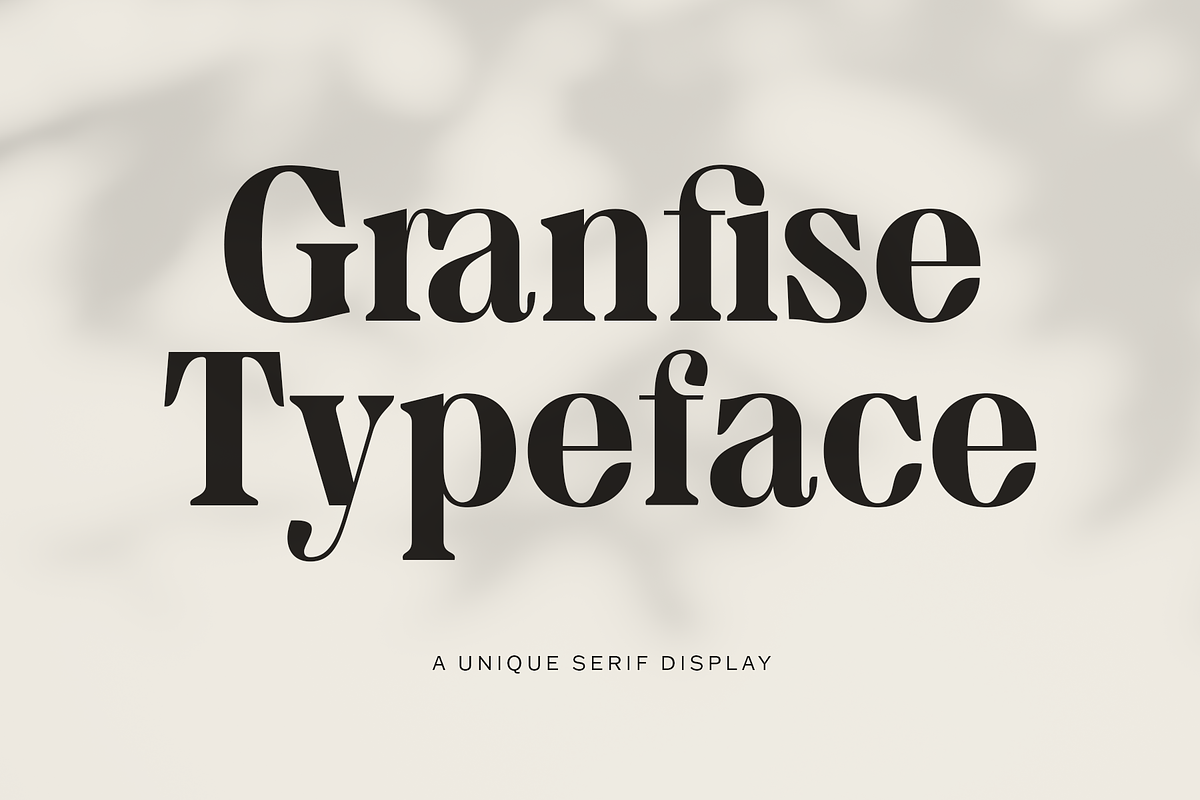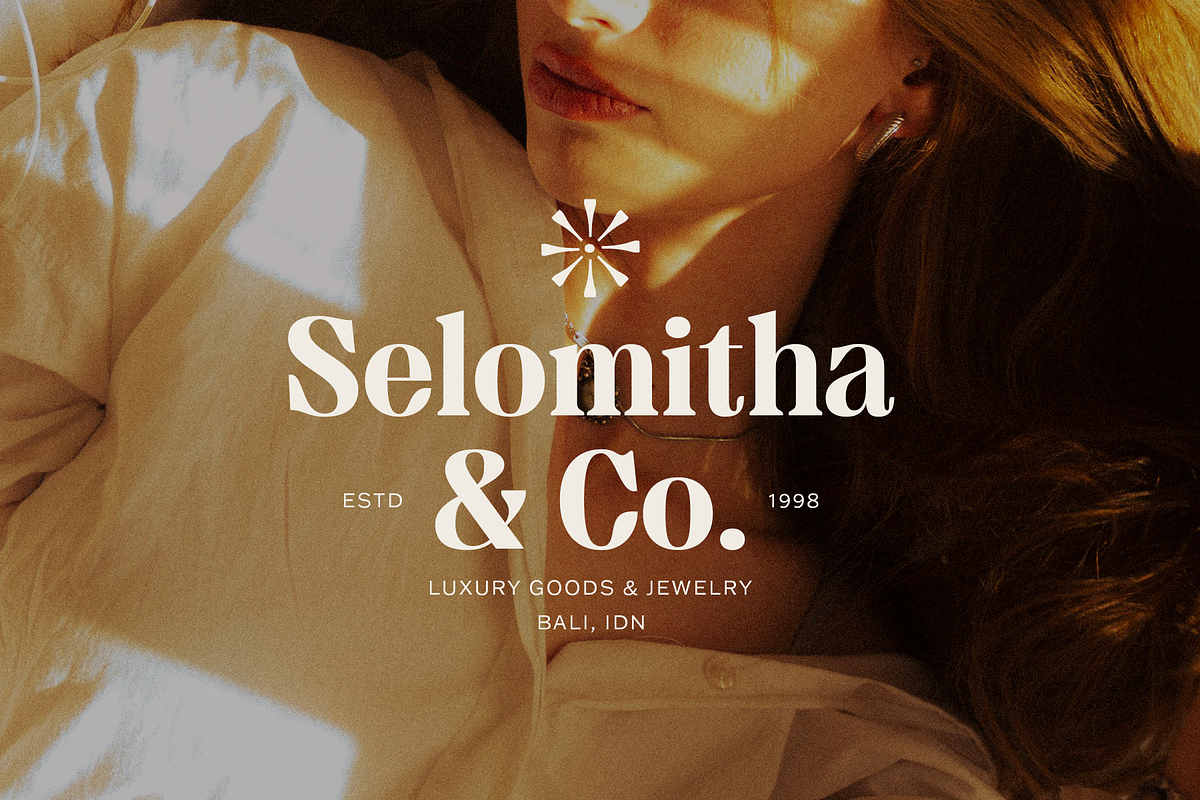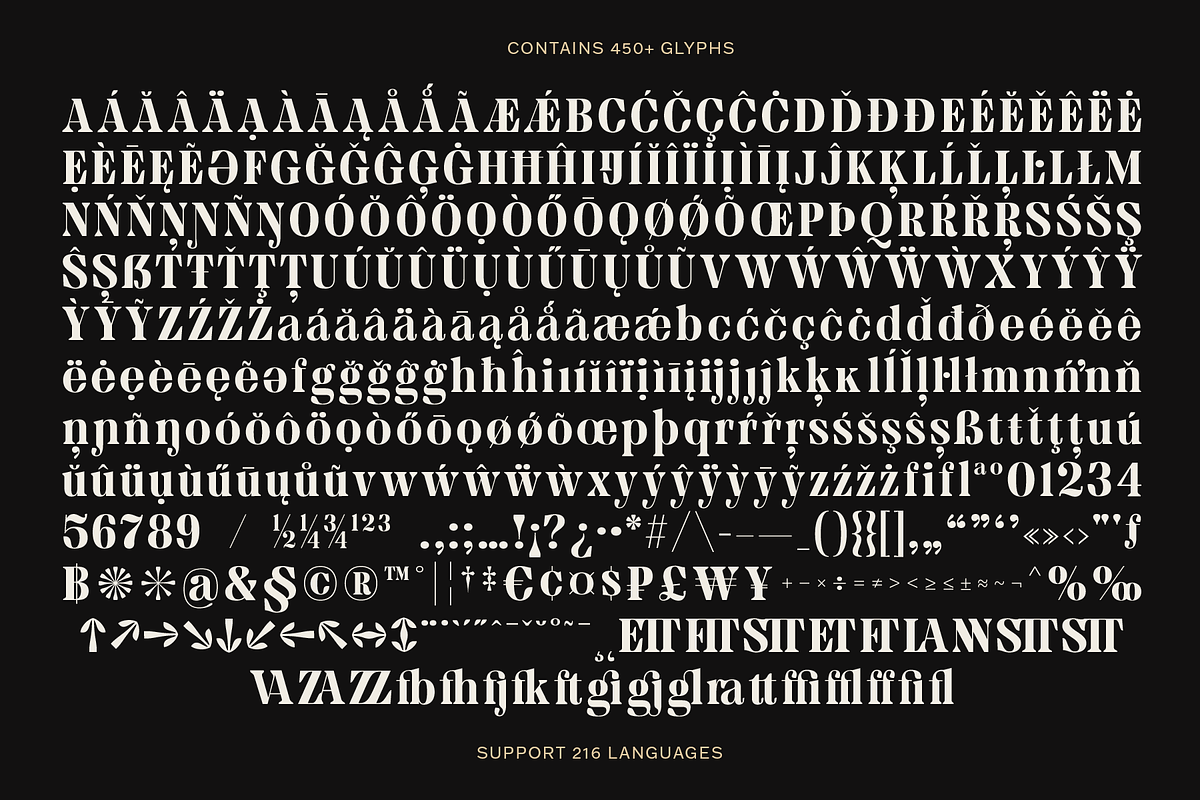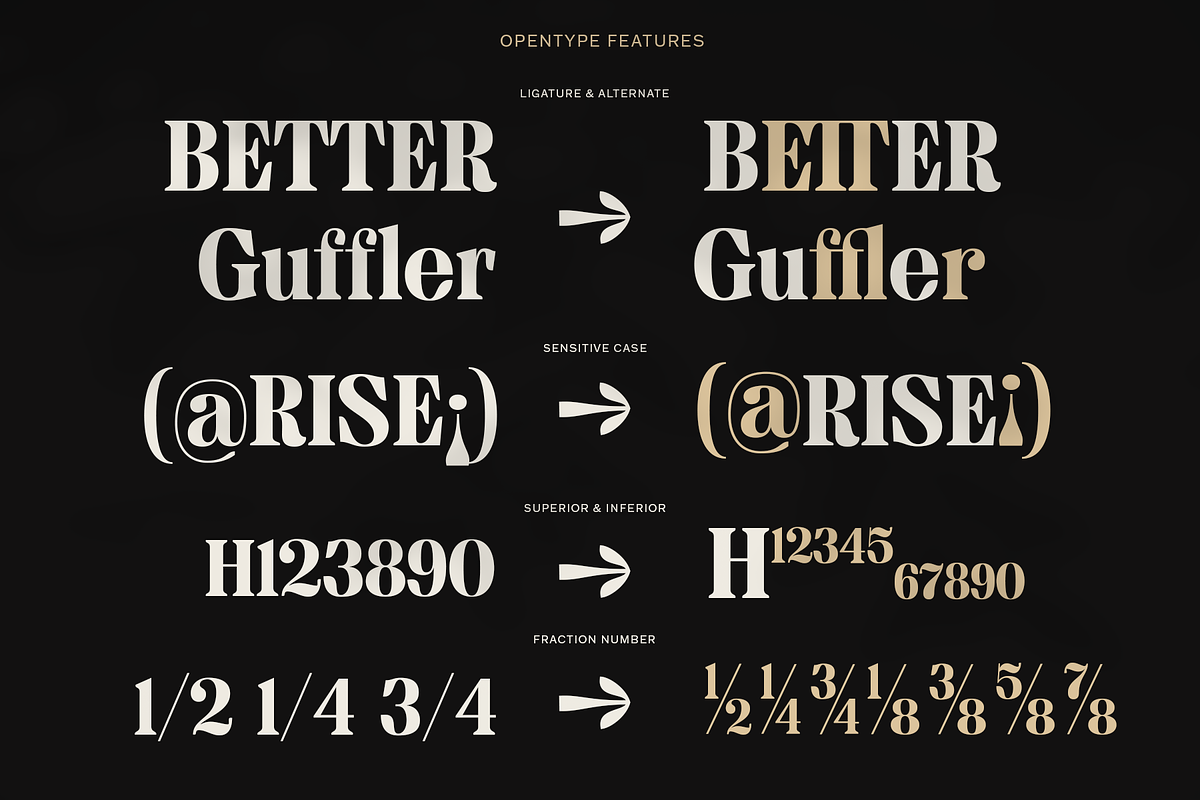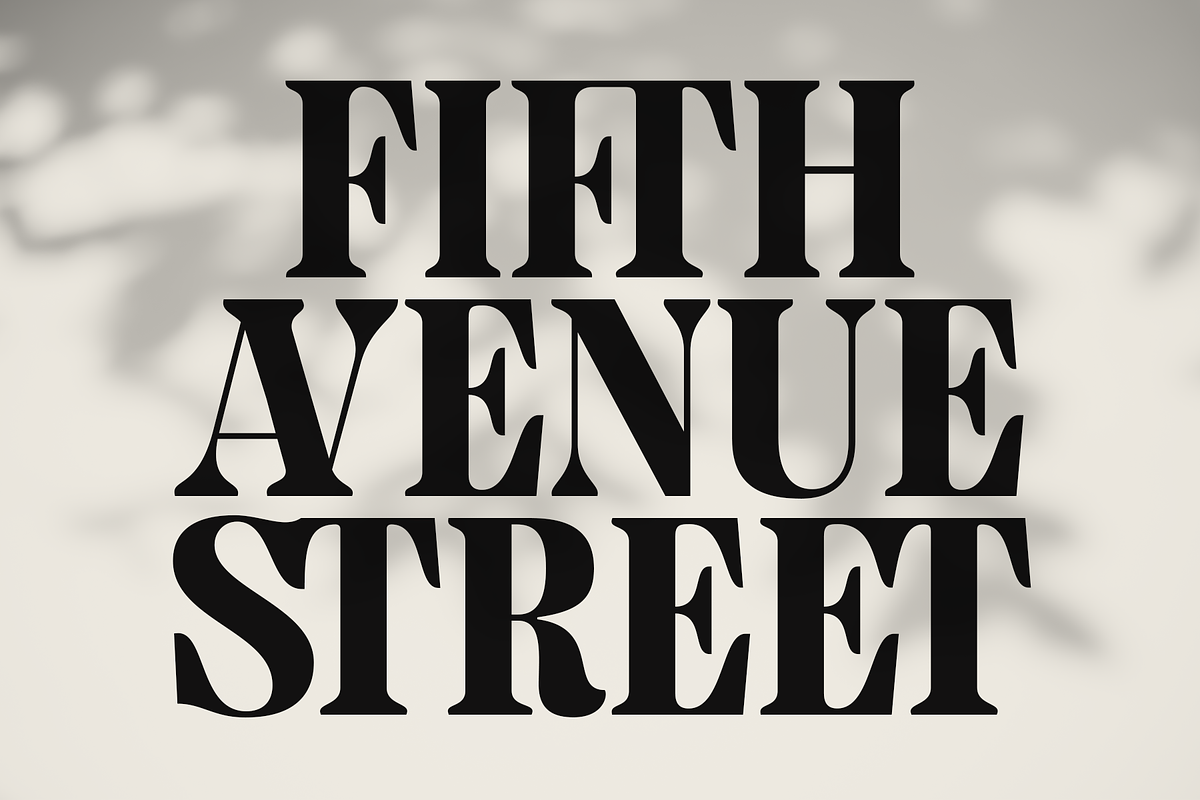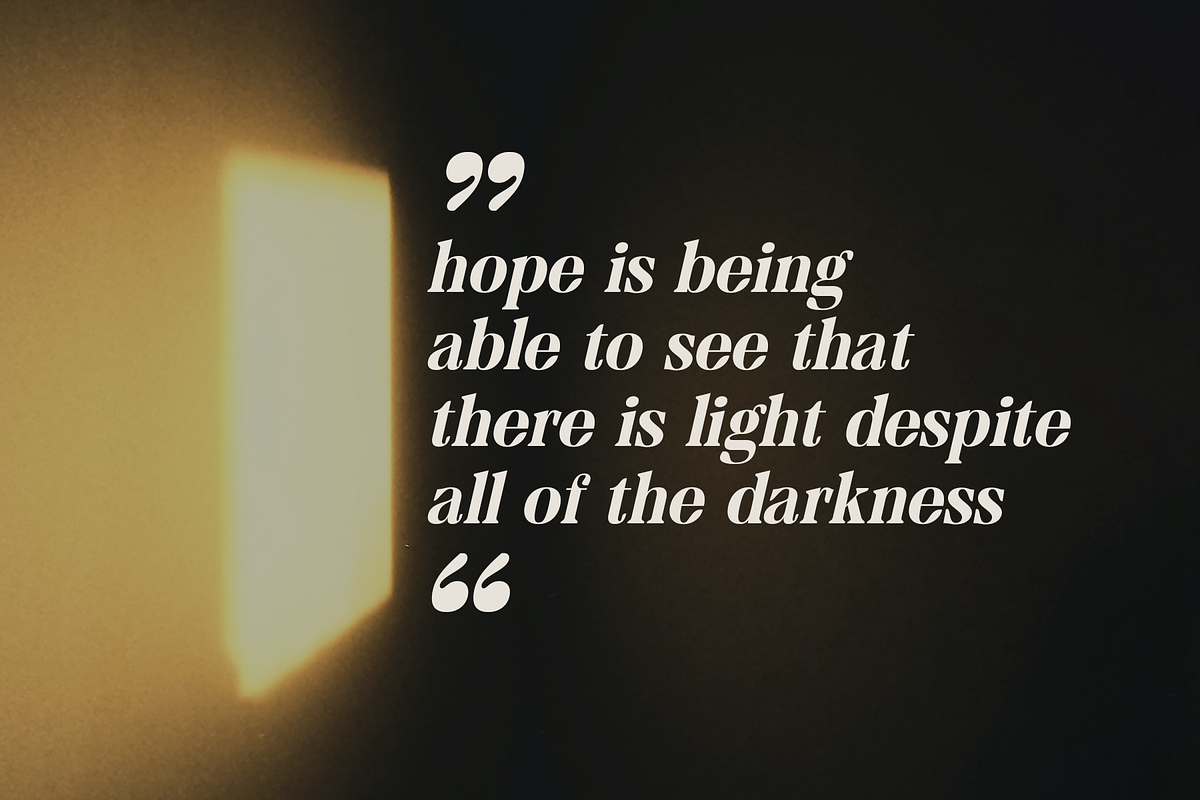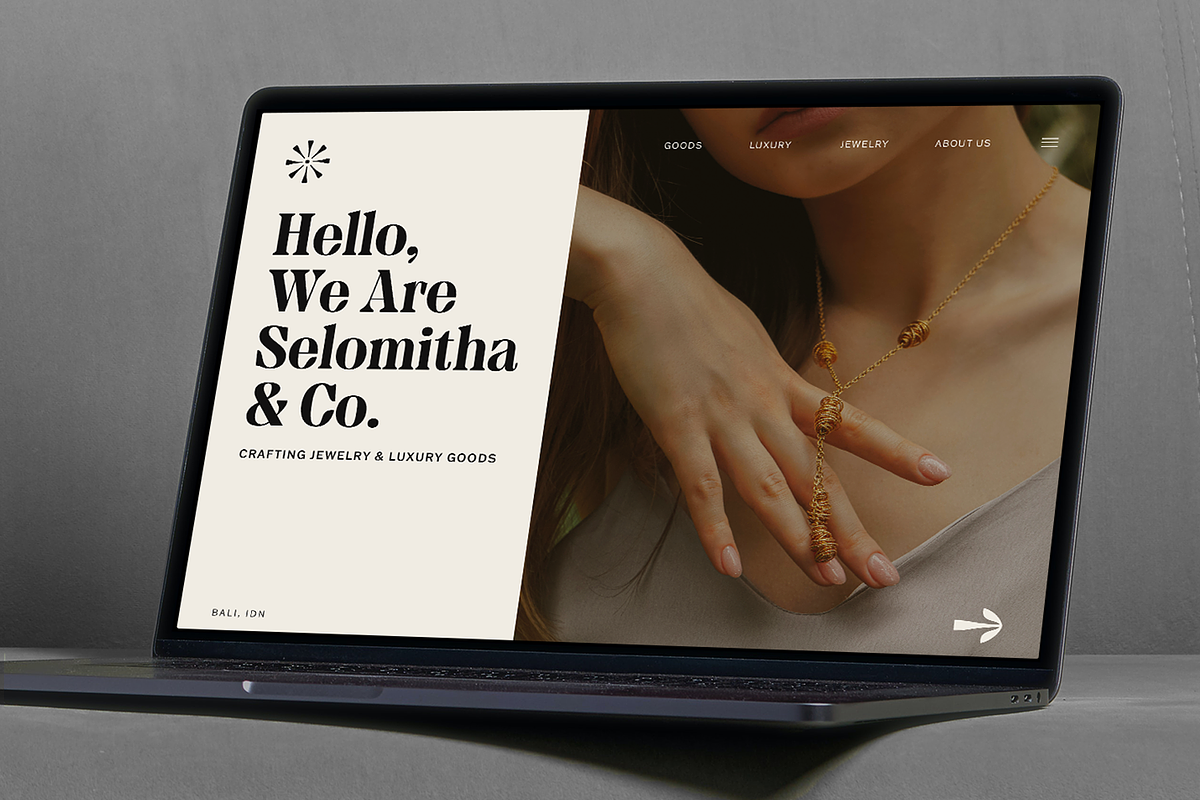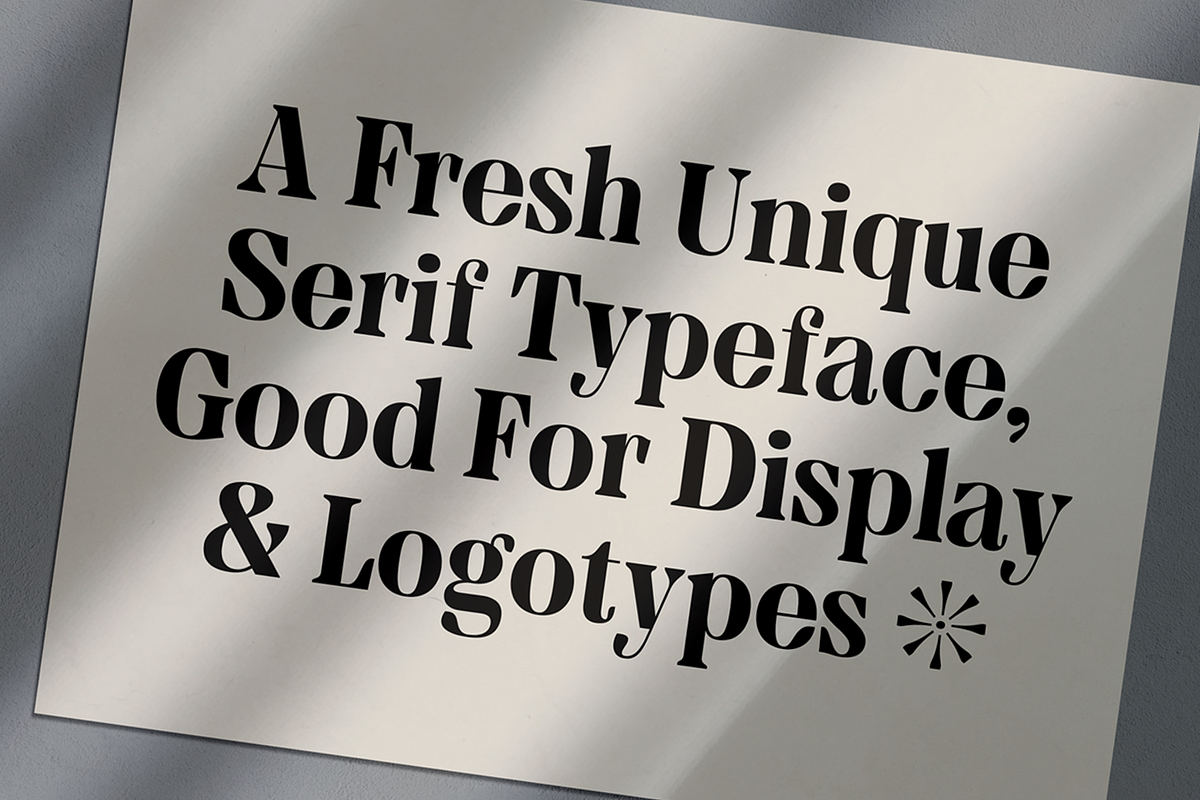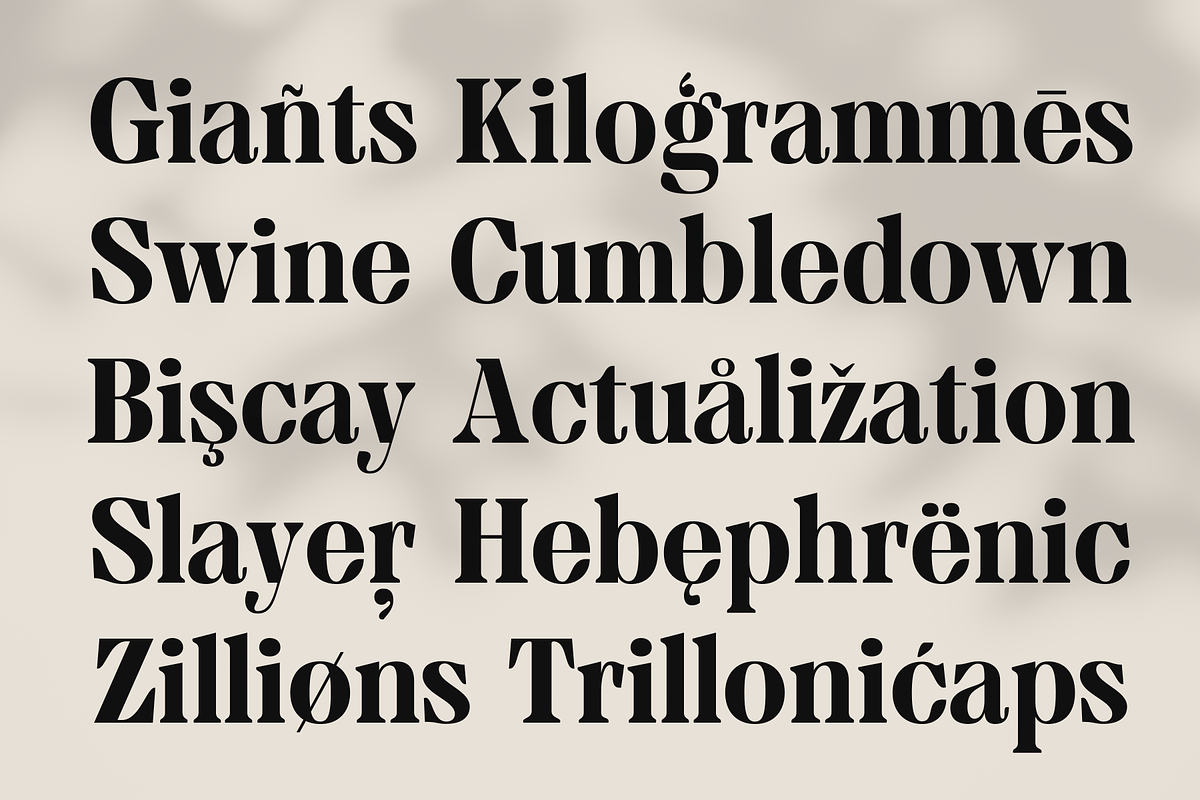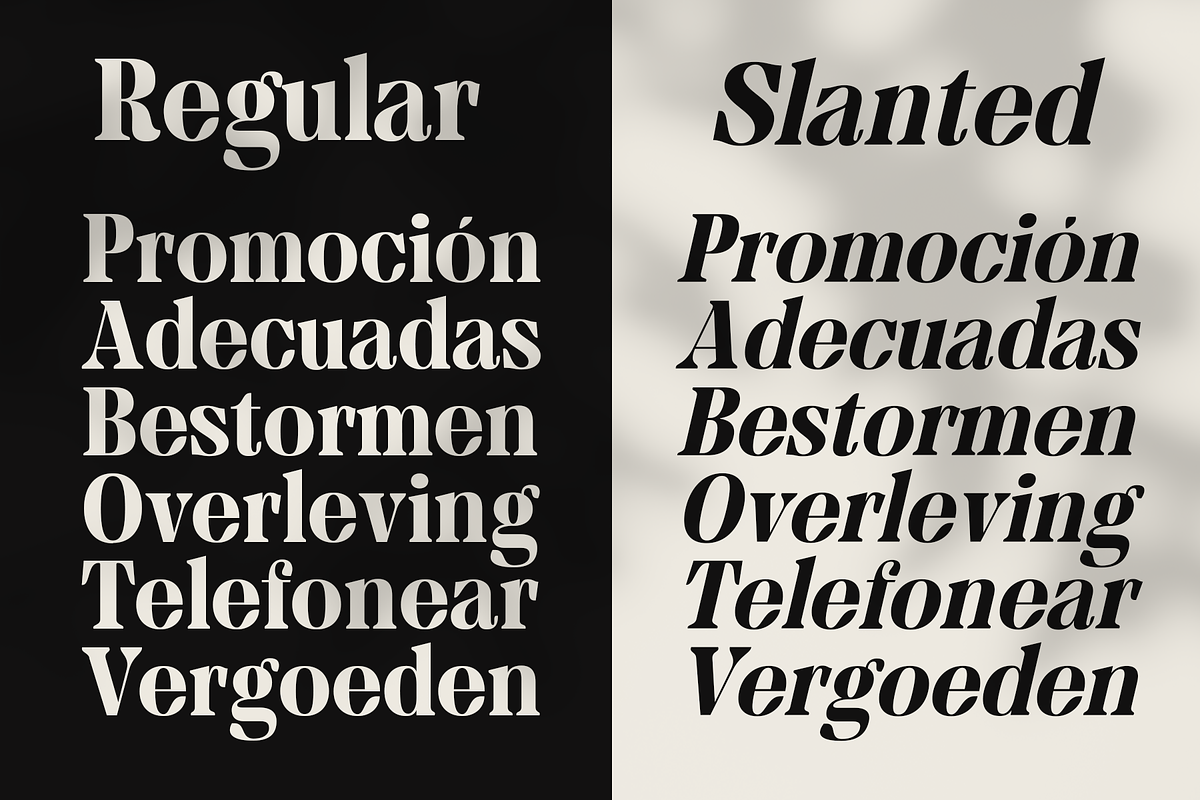
MTC Granfise - A Unique Serif
MTC Granfise is an elegant and unique serif font. Comes with ligature styles for display purposes to make it satisfying, also suitable for minimalist, elegant, chic, branding, packaging, and logotype design to boost your design exploration.
Comes with many iconic symbols and arrows (which can be accessed from glyphs in your Adobe software)
Multilingual Support supports many different languages 200+
Slanted Version
A Tons of ligature to make it more versatile